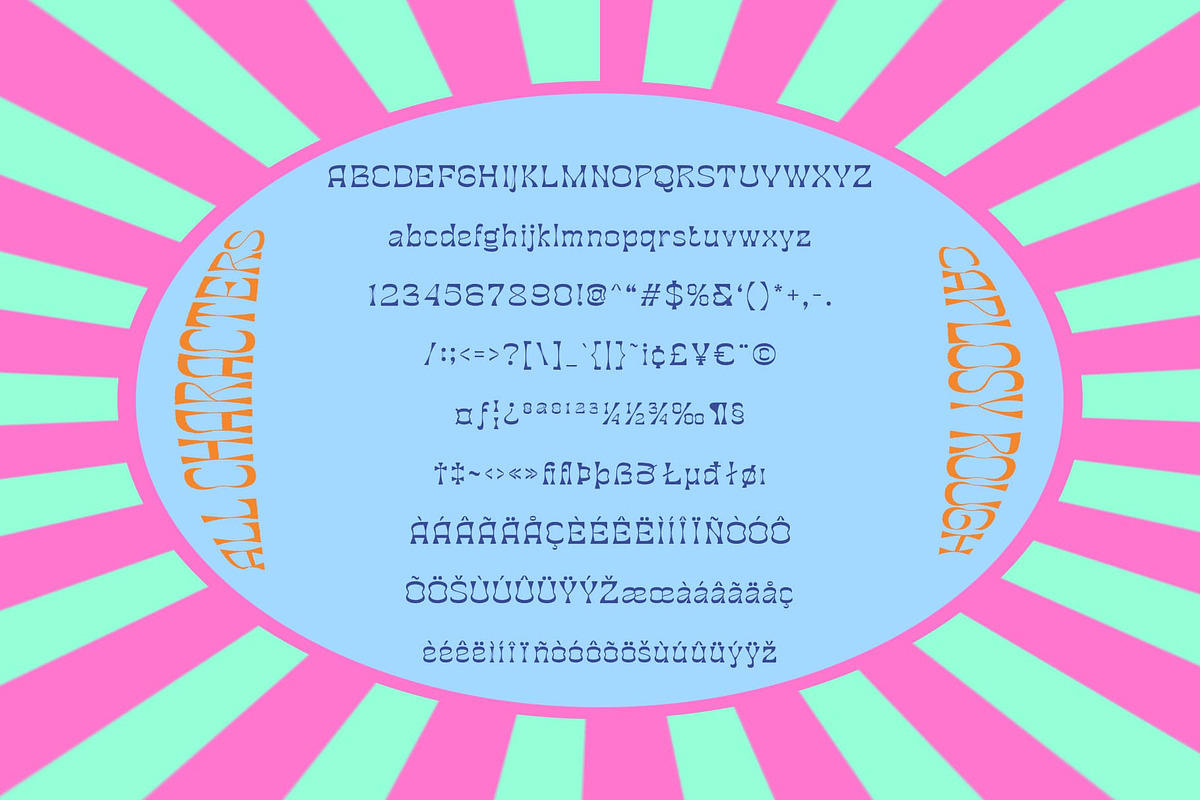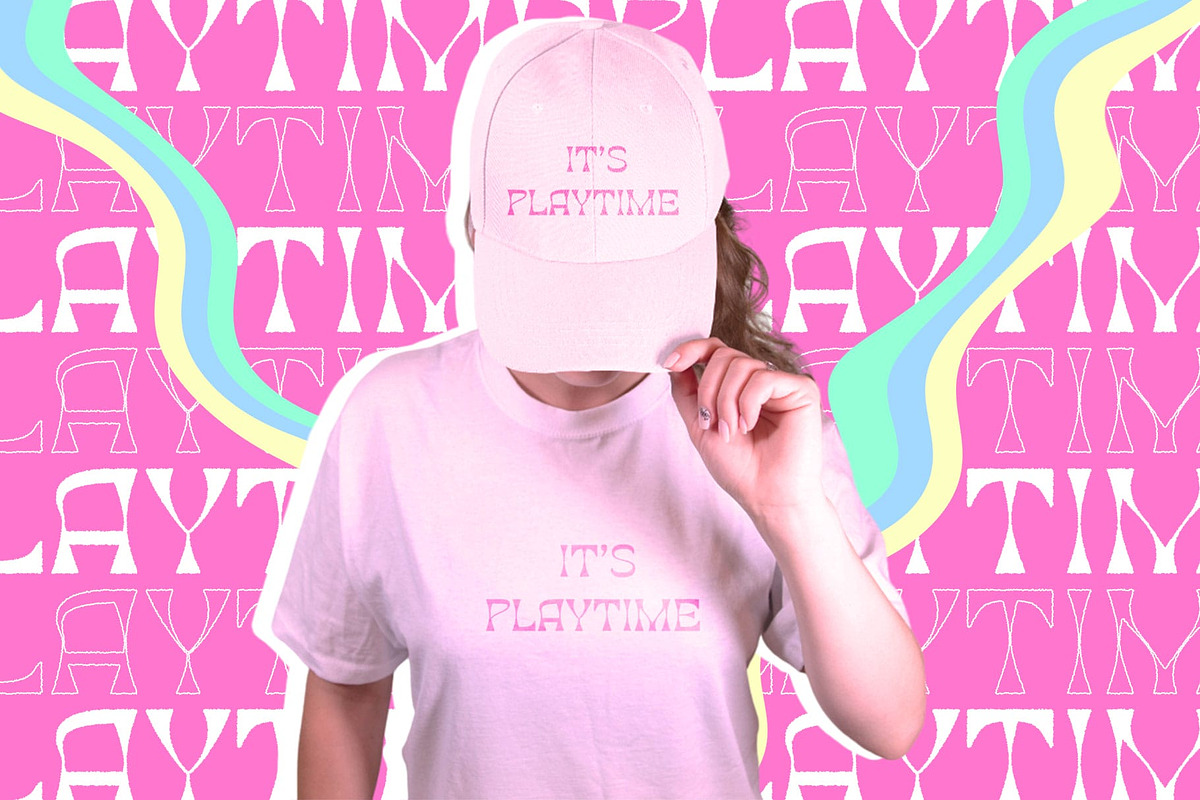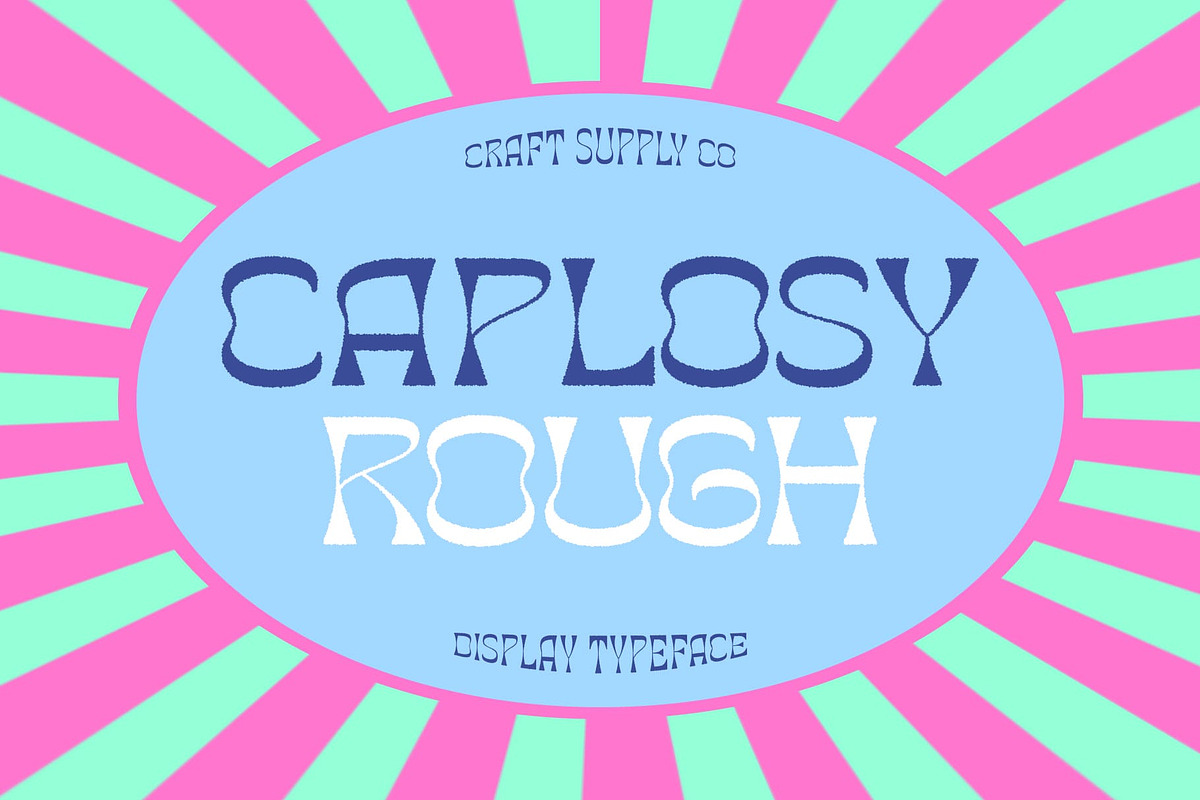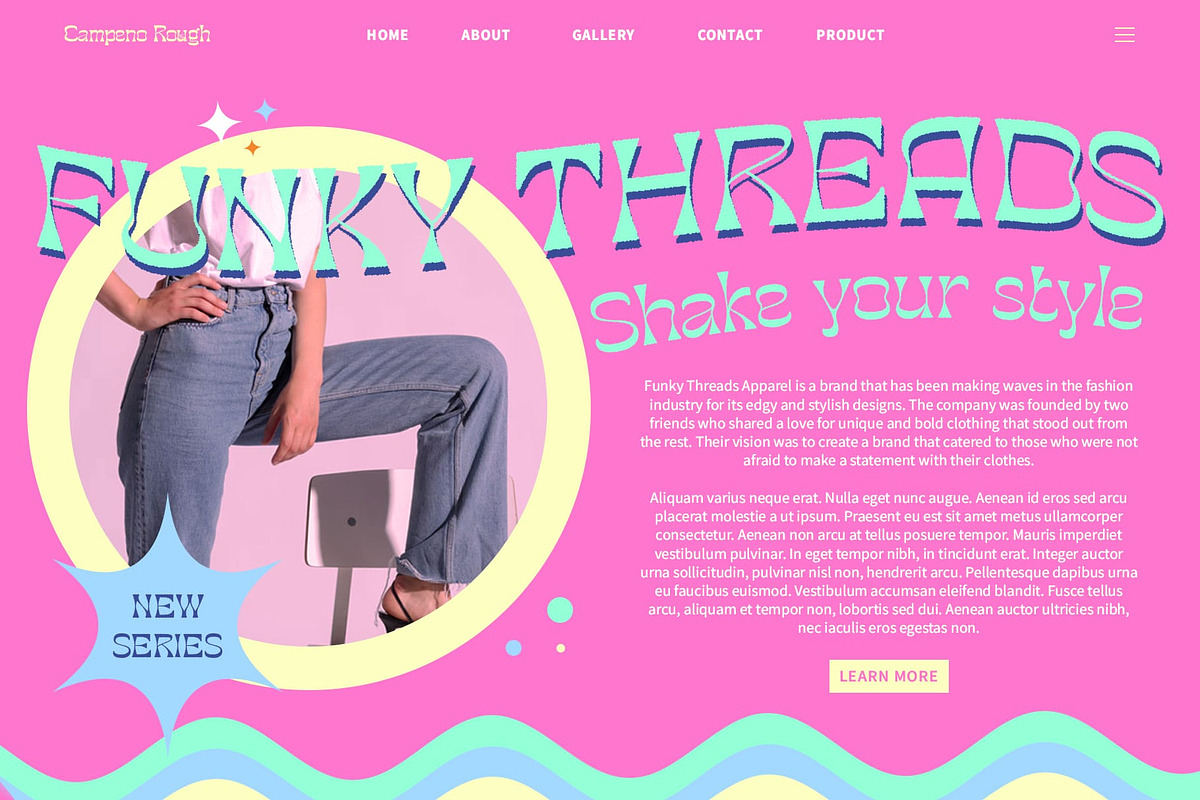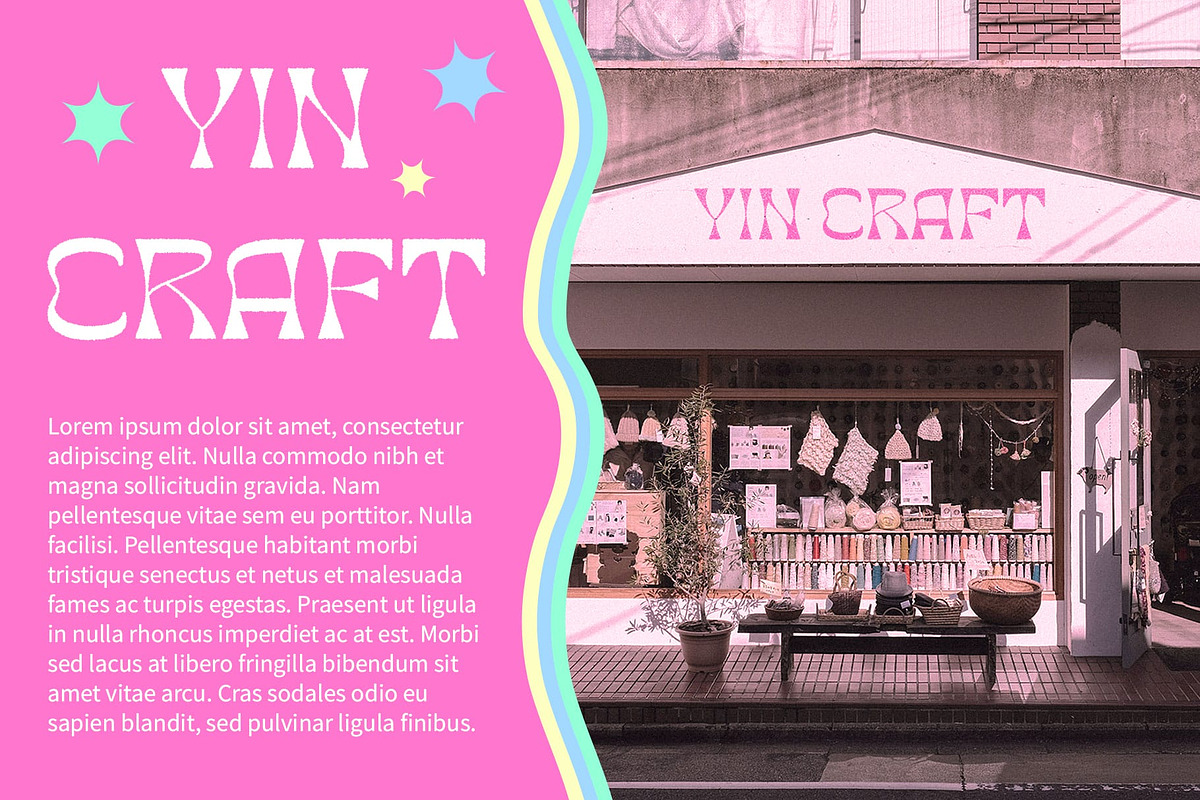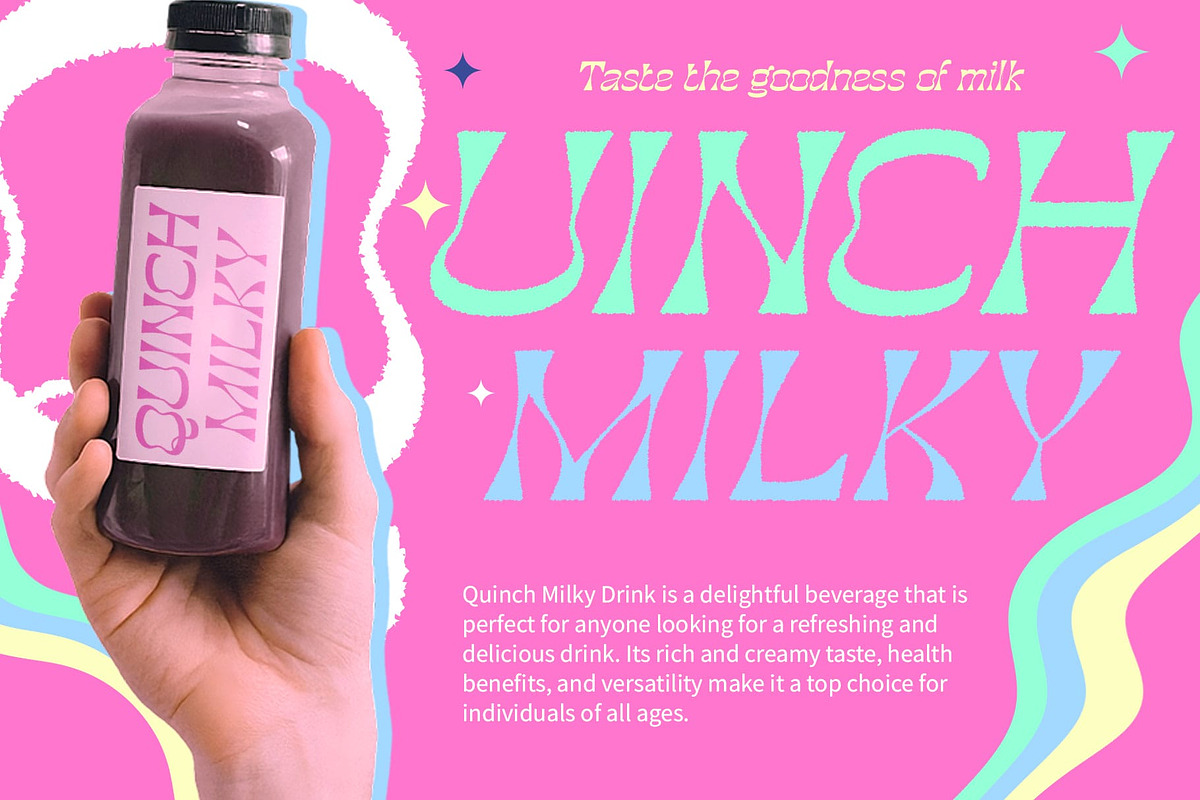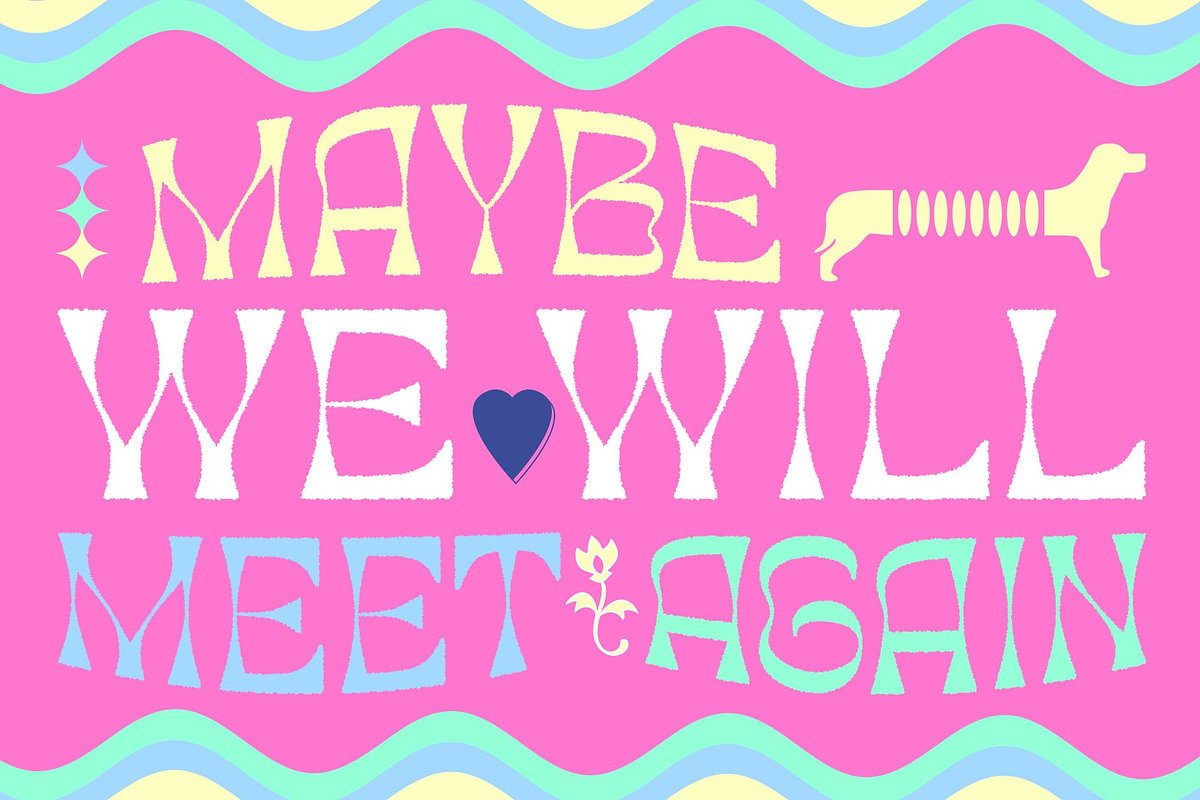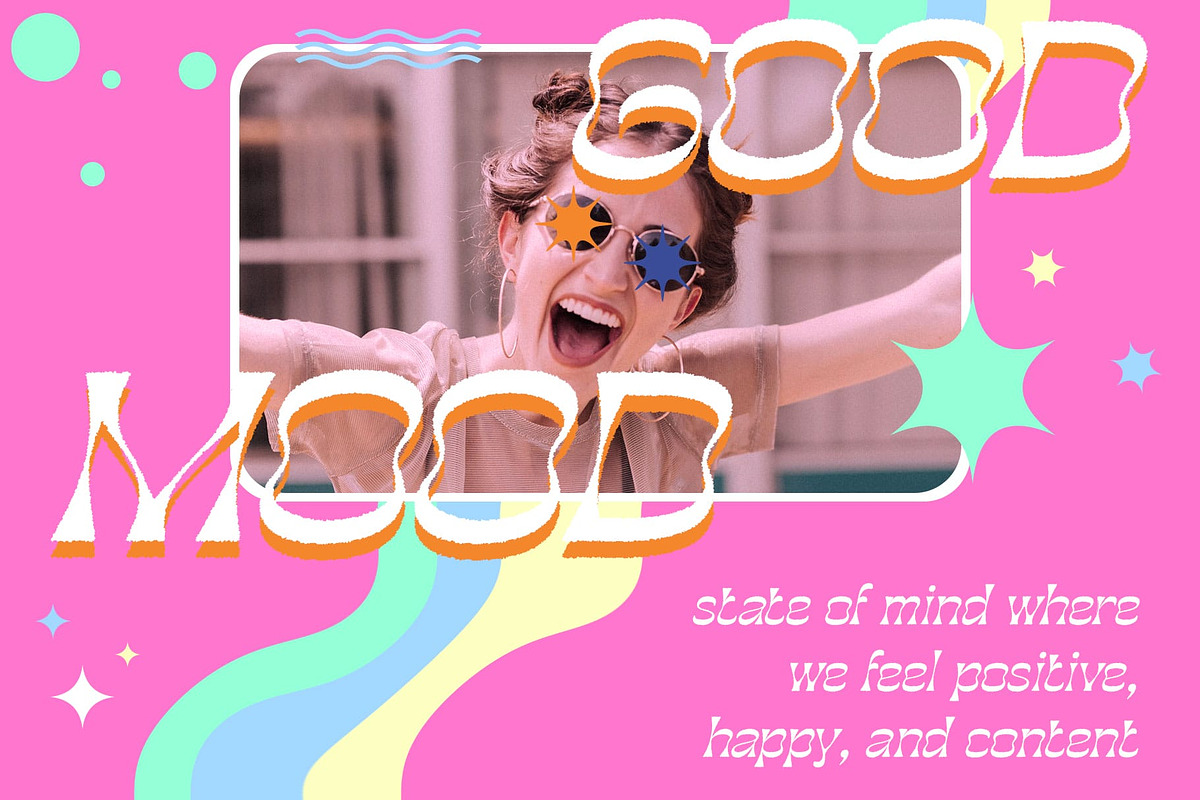
Caplosy Rough
Caplosy Rough: Where Modern Psychedelia Meets Raw Edge
Modern Psychedelic Display Font Caplosy Rough is a striking display font that combines a modern psychedelic style with a rough, edgy vibe. Perfect for creating eye-catching displays, this font adds a bold and dynamic touch to your designs.
Psychedelic Design with a Rough Twist With its modern psychedelic design and rough texture, Caplosy Rough offers a unique and vibrant twist on traditional display fonts. The rough edges and dynamic forms create an energetic and captivating look, ideal for posters, album covers, and other projects that need a bold statement.
Perfect for Bold Displays Whether you’re designing a flyer for a music festival or creating packaging for a cutting-edge product, Caplosy Rough is sure to make an impact. Its distinctive design and rough texture make it perfect for displays that demand attention and convey a sense of creativity and boldness.
Versatile and Easy to Use Despite its bold appearance, Caplosy Rough is versatile and easy to use. The font works well in both large and small sizes, making it suitable for a variety of applications, from headlines and banners to logos and more. With its blend of modern psychedelic style and rough vibe, Caplosy Rough adds a captivating and edgy touch to any design.